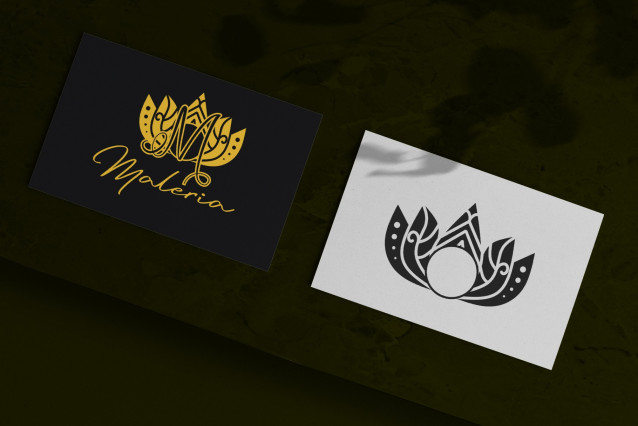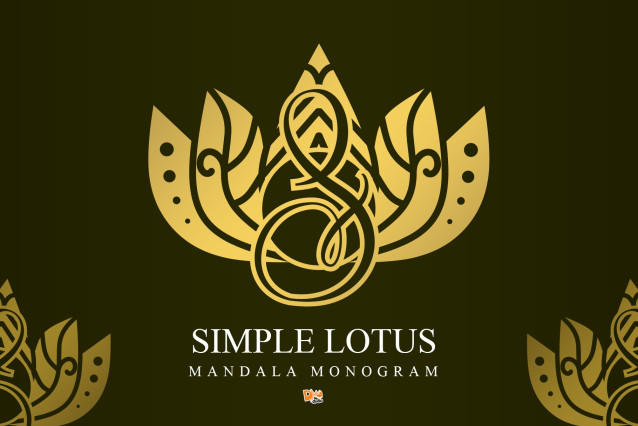
Simple Lotus Mandala Monogram Font
Simple Lotus Mandala Monogram is a refined monogram font that combines the grace of the lotus flower with clean, minimal mandala detailing. This font is perfect for those who seek simplicity with meaning—ideal for wellness branding, yoga-inspired prints, personalized stationery, wedding invites, and thoughtful packaging designs.